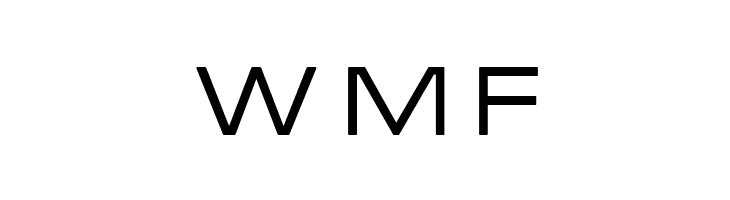
A modern, clean sans-serif font with excellent readability and versatility.
A bold, modern sans-serif font with clean lines and excellent legibility.
A bold, modern sans-serif font with uniform strokes and clear characters.
A modern, italic sans-serif font with clean lines and a dynamic style.
A modern, narrow sans-serif font with clean lines and uniform stroke width.
A modern, bold, narrow sans-serif font with clean lines and medium contrast.
A bold, modern font with clean lines and a slightly condensed style.
A jagged, hand-drawn display font with a spooky, playful vibe.
Bold, angular display font with bat motifs for a spooky effect.
A horror-themed decorative font with graveyard elements.
A playful, bold font with rounded, thick letterforms and a friendly feel.
A flowing, elegant script font with graceful curves and artistic flair.
A playful and elegant script font with flowing cursive letterforms.
An elegant script font with decorative flourishes and classic calligraphy style.
A modern, geometric sans-serif font with clean lines and uniform stroke width.
A modern, geometric font with clean, rounded edges and uniform stroke width.
A dynamic and fluid script font with elegant, flowing letterforms.
A bold, rounded font with a modern and playful style.
A dynamic brush-style font with fluid, expressive strokes and a hand-drawn appearance.
A playful, rounded font with bold, smooth curves and a friendly appearance.
A modern, outlined font with a playful and bold style.
A playful, rounded italic font with bold and consistent strokes.
A bold, outlined font with rounded edges and a modern, playful aesthetic.
Elegant script font with decorative swirls.
A modern, geometric font with a clean and minimalist design.
An elegant script font with ornate swashes and flowing characters.
A whimsical, decorative script font with elegant loops and swirls.
Casual handwritten font with a loose style.
A classic, calligraphic font with elegant, flowing characters and sharp serifs.
A sharp, angular serif font with condensed letterforms and high contrast strokes.
A calligraphic font with medieval influences and elegant curves.